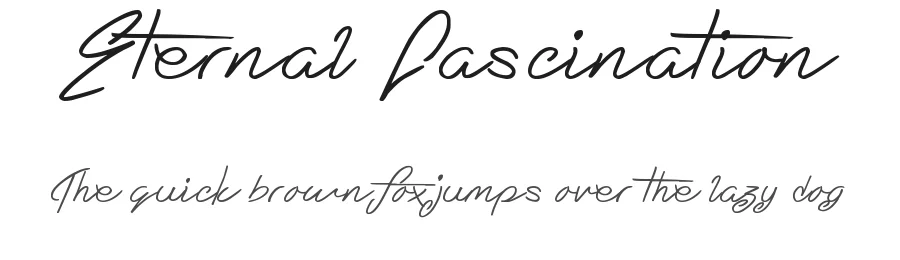
About Alternative Line Font
Alternative Line is a monoline script font with cursive style, many characters are smoothly connected.
This lovely typeface is great for designers who are seeking a natural and authentic style in their creations!
Alternative Line Font is a script font that shines as a display or heading face. Pair it with a clean sans-serif or serif font for body text β the contrast creates a clear hierarchy while the two styles stay balanced and easy to read.